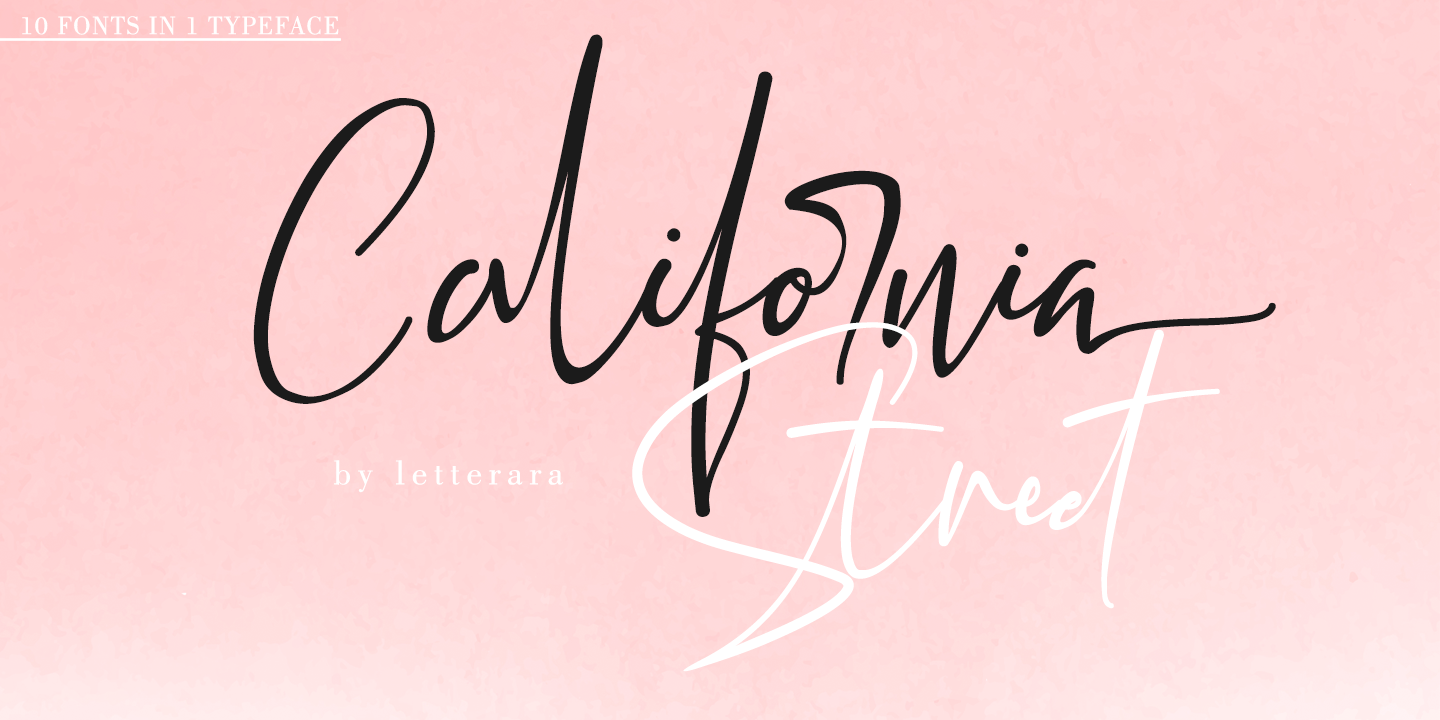
California Street Font Free Download – A sun-soaked, retro-inspired typeface that captures the laid-back vibe of West Coast surf culture and vintage Americana. Commercial use requires licensing, but you can download the free version to bring some California cool to your personal projects.
Where Can You Use California Street Font?
This versatile font shines in:
• Surf/skate branding (beachwear, board designs, skate shops)
• Retro diner graphics (menus, neon sign-inspired logos)
• Music festival posters (indie rock, beach concerts)
• Lifestyle branding (craft beer, organic cafes, boutique hotels)
Why Is California Street Font Exciting?
California Street delivers effortless cool with:
Slightly irregular baselines mimicking hand-painted signs
Subtle sun-bleached texture for authentic vintage feel
Alternate laid-back characters for custom looks
Perfect balance between retro charm and modern readability
California Street Font Family
The complete Golden State collection includes:
• California Street Regular (base relaxed style)
• California Street Bold (bold beachfront signage)
• California Street Outline (hollow palm trees vibe)
• California Street Shadow (sunset dimensional effect)